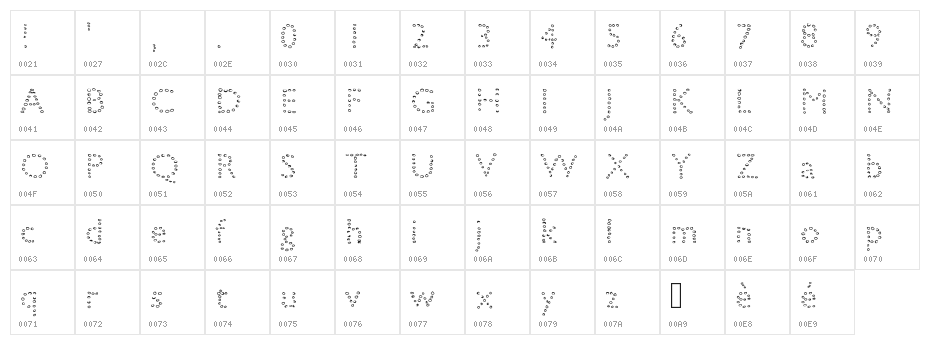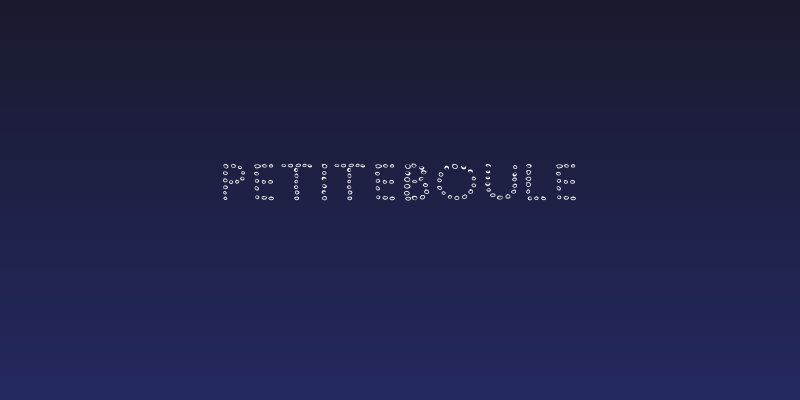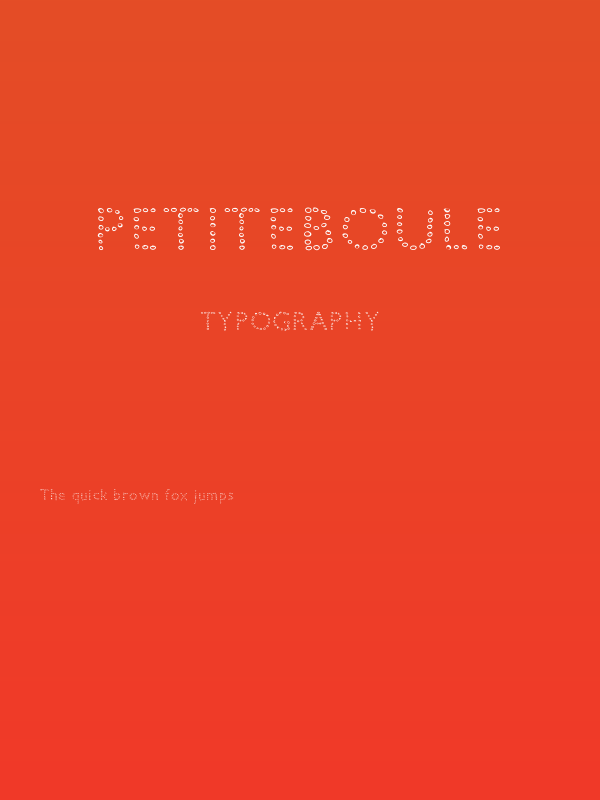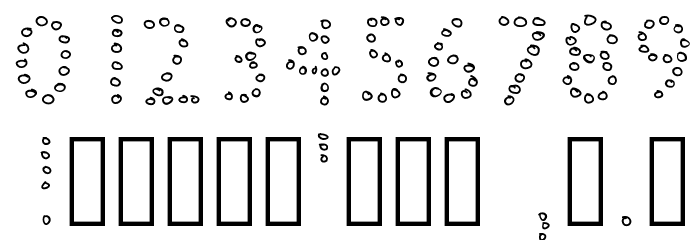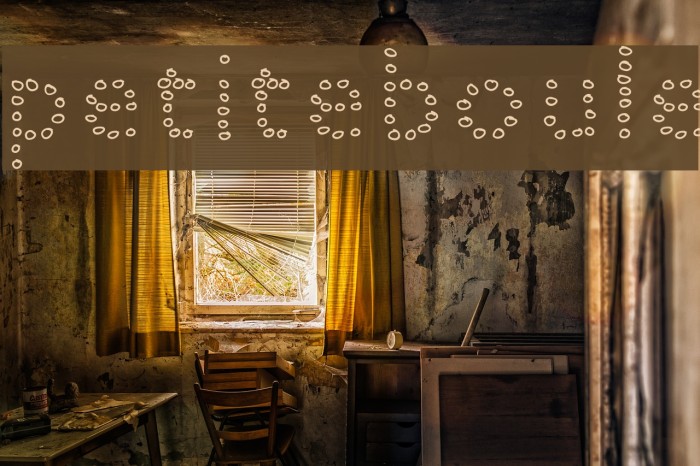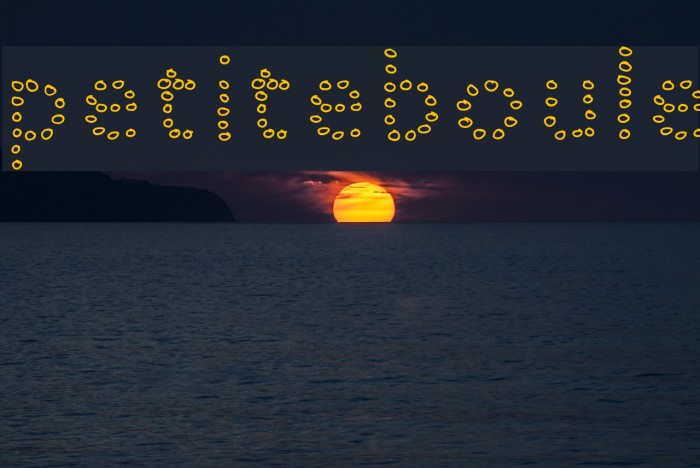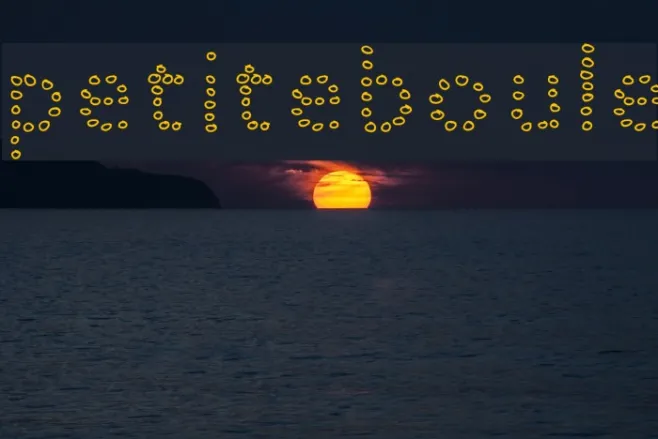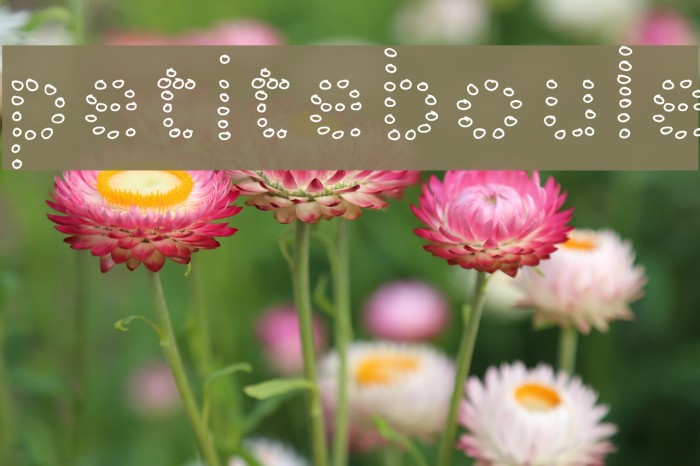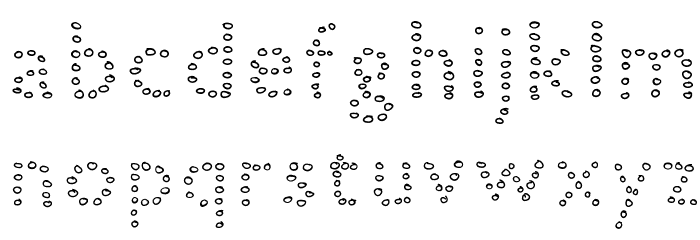
petiteboule Font
petiteboule Description
This font features a unique and playful design, with each character composed of small, evenly spaced circles that form the shape of letters and numbers. The overall appearance is whimsical and light-hearted, making it ideal for creative and informal projects. The characters maintain a consistent size and shape, providing a uniform look across the alphabet and numerals. The special characters are also crafted in the same style, ensuring a cohesive visual theme. This font's distinctive dotted pattern adds a touch of fun and creativity, making it stand out in any design.